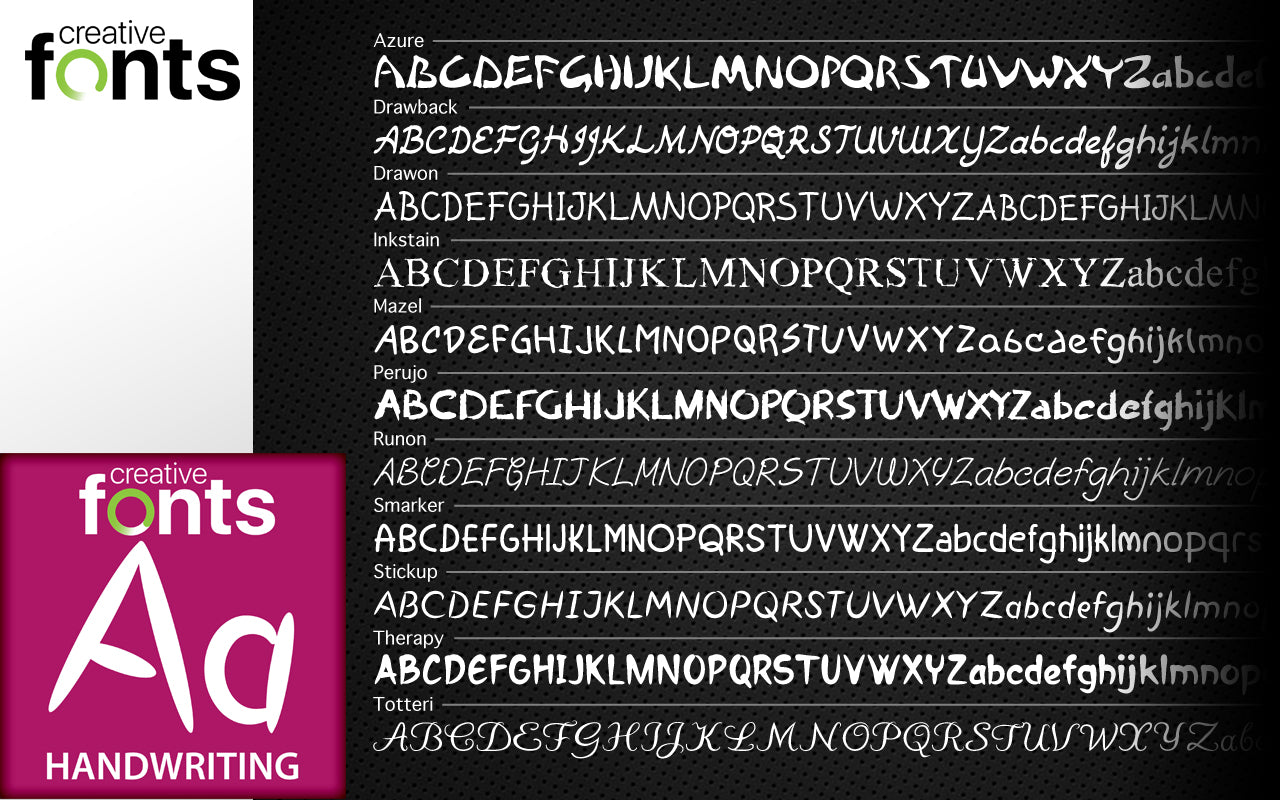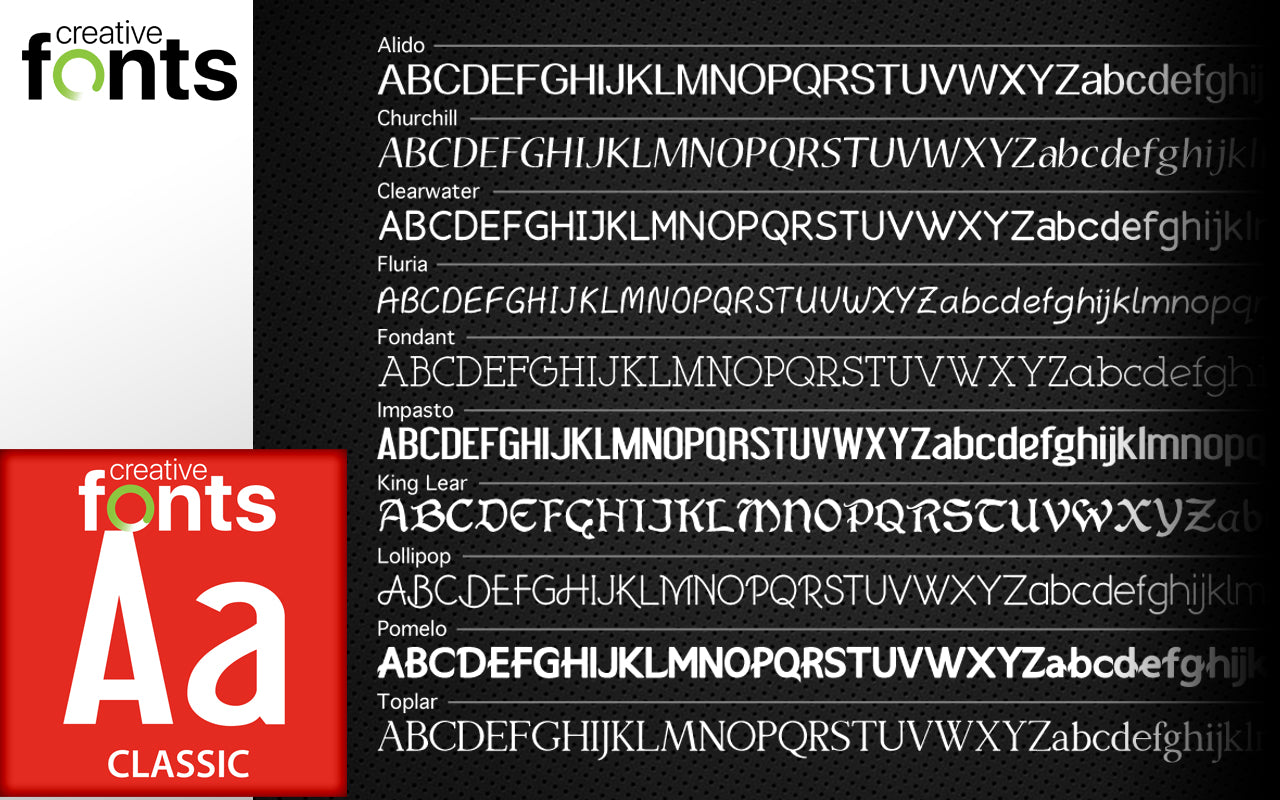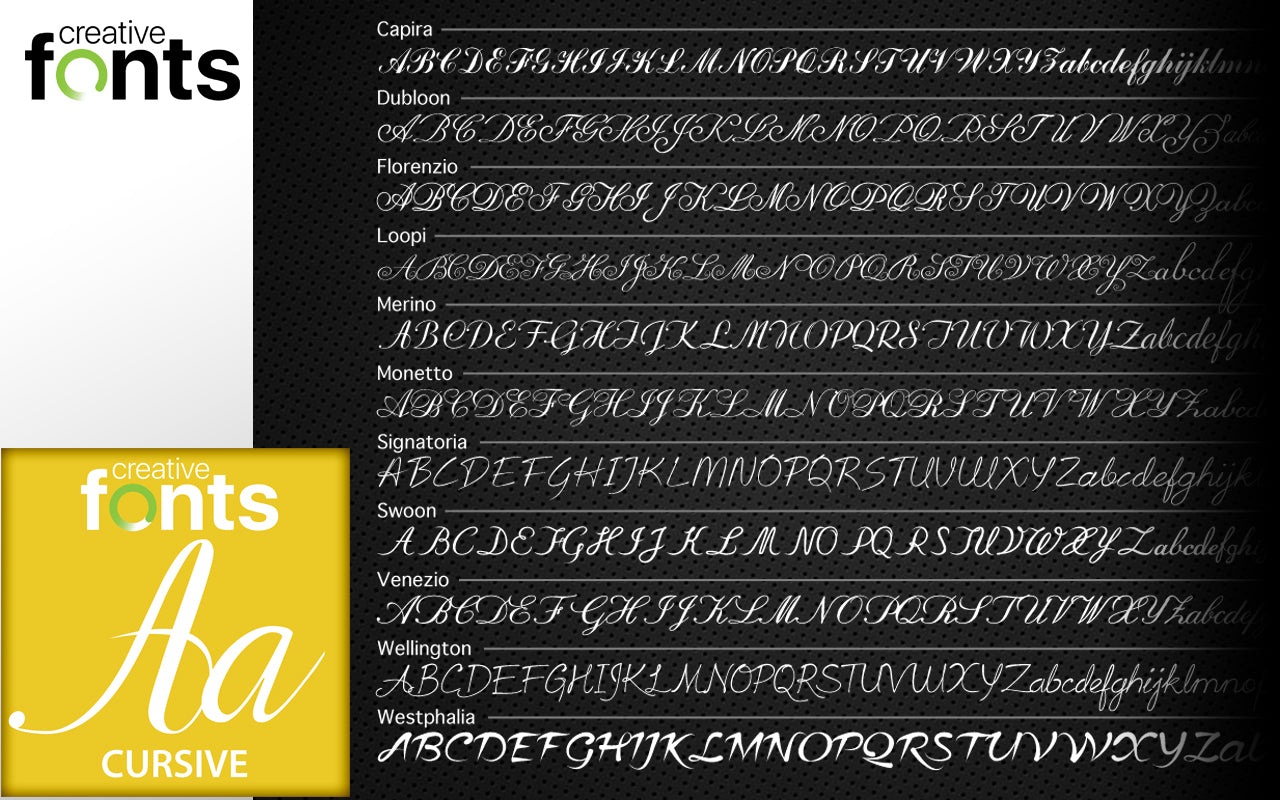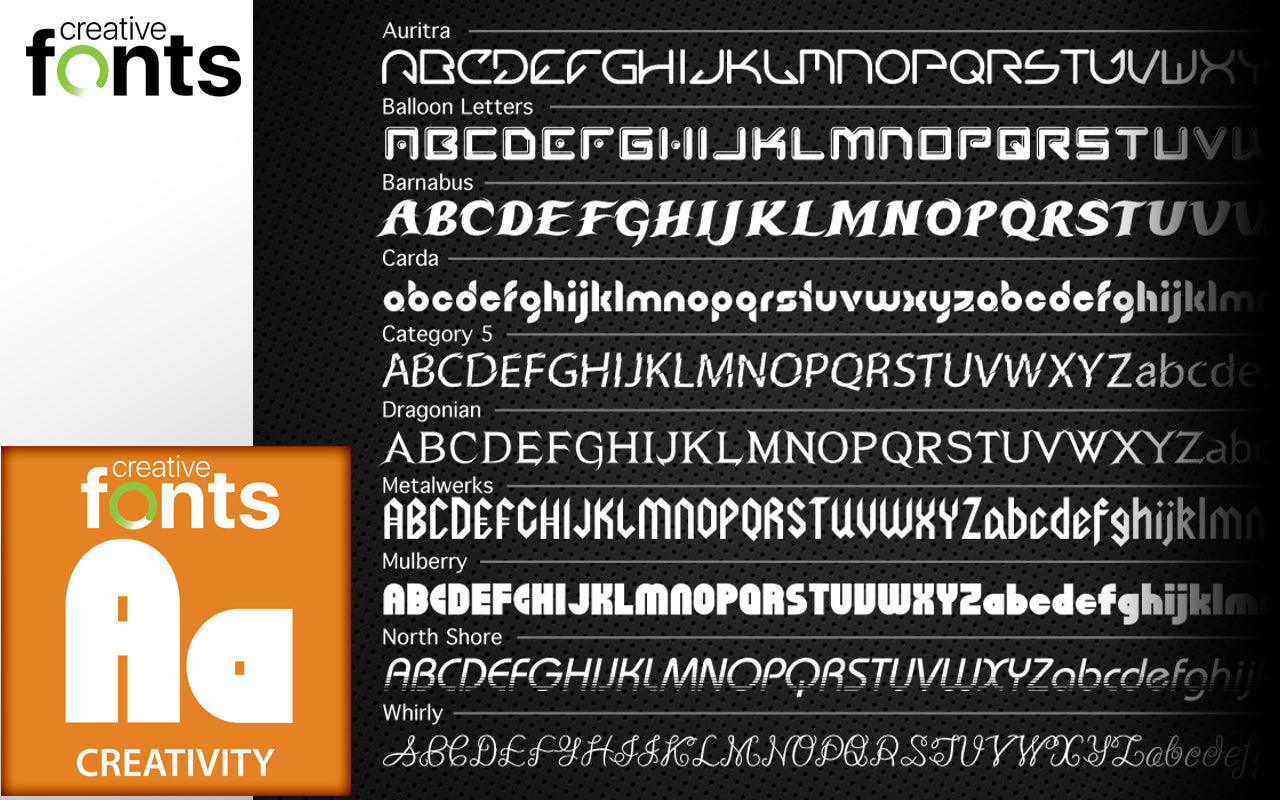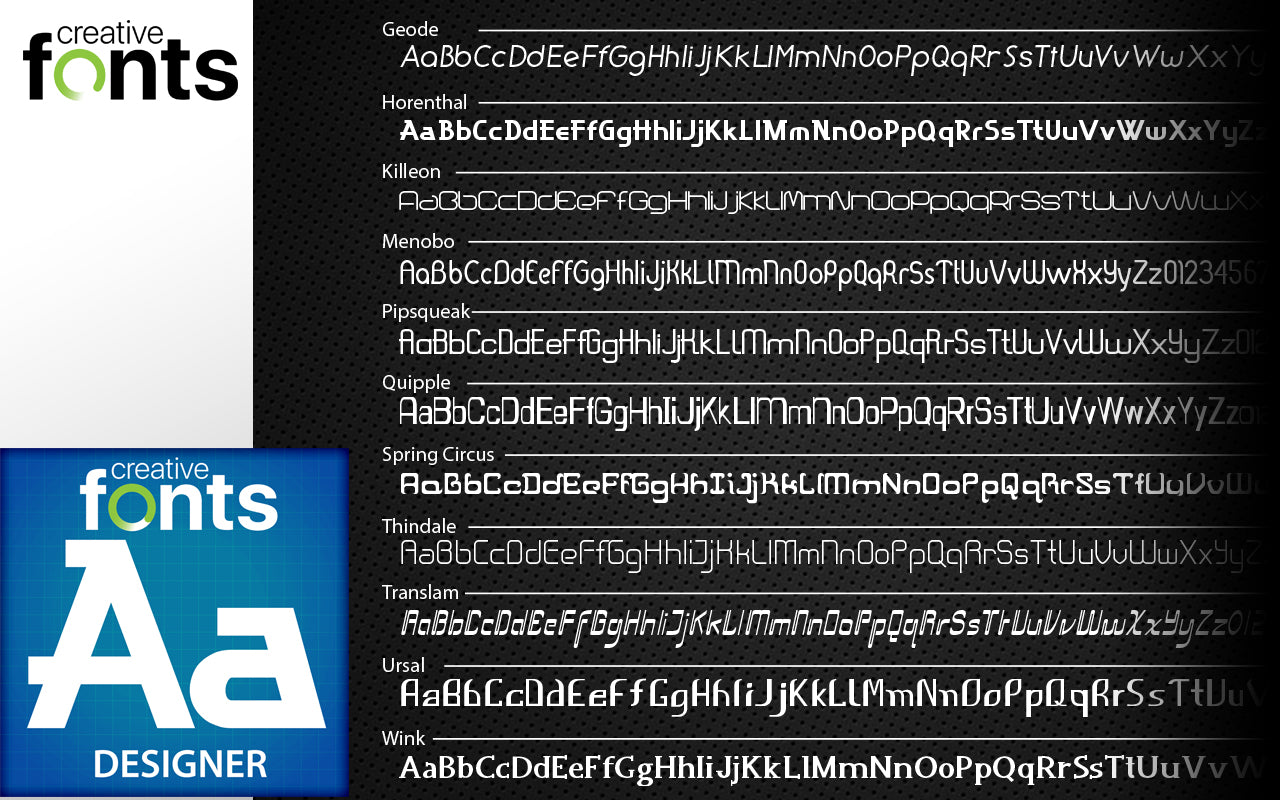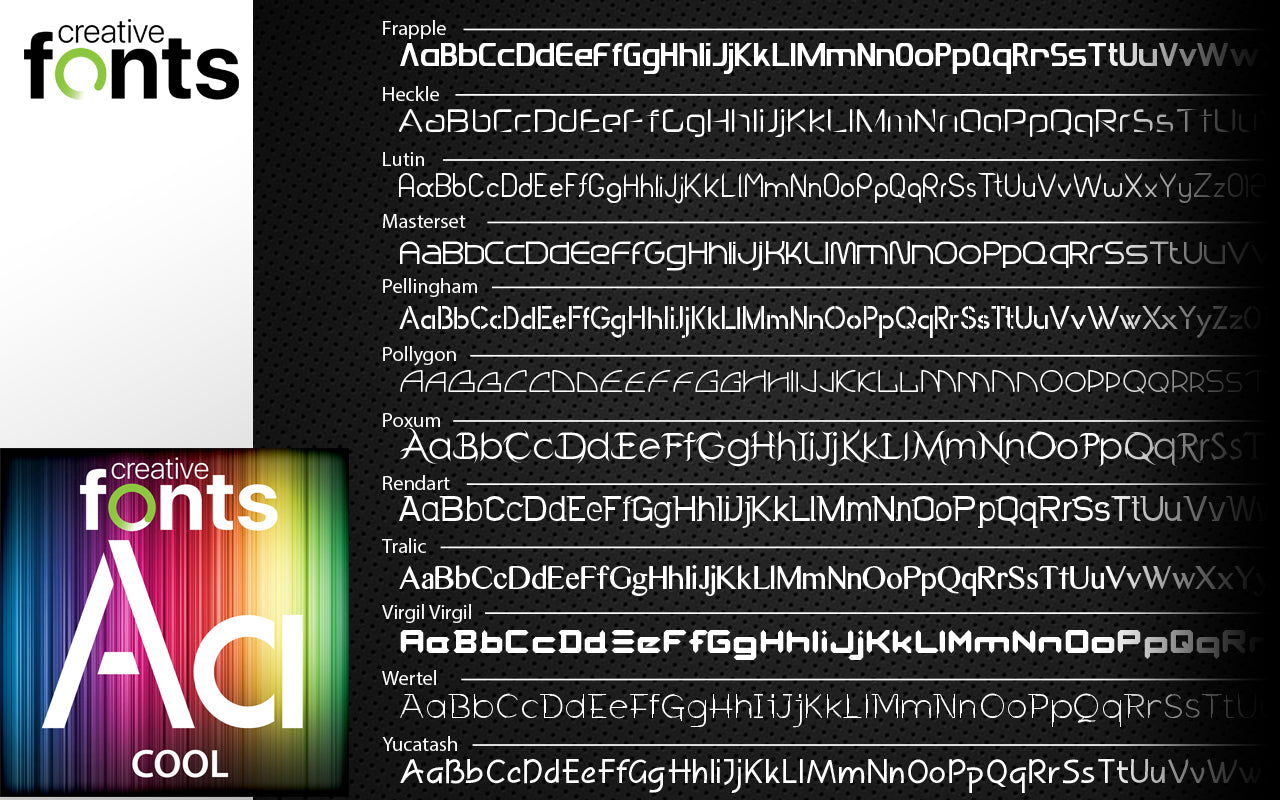
Creative Fonts Traditional Collection
The Creative Fonts Traditional Collection is a unique, hand selected group of fonts. Each font is categorized into themed sets that you can view in more detail below.
Classic Fonts:
The perfect collection for professional newsletters, print ads, and more. Bring a touch of class to your creative projects.
Cursive Fonts:
Add sophistication to your next soirée invitation, with a cursive font that conveys a hint of luxury. Perfect for upscale invitations, place holders or black-tie events.
Creativity Fonts:
This Creativity Fonts Collection is as varied and wide-ranged as your own imagination. Add an artistic flair to your projects like birthday invites, logos, and signs.
Designer Fonts:
Fonts that designers search for. Eye catching, unique fonts that set you apart from everyone else and are perfect for branding, signage, logos and more.
Cool Fonts:
A modern take on fonts with clean, crisp, cool font selections. This collection is perfect for modern websites, brands and logos. They also work great with hip and trendy night clubs, parties, and events.
Handwriting Fonts:
Create your invitation with a personal touch your guests deserve. Our Handwriting Fonts Collection takes the mass production feel out of any project and replaces it with a warm handwritten one.
Each and every creative font contains a full set of characters plus all of the international and foreign language symbols and special characters.